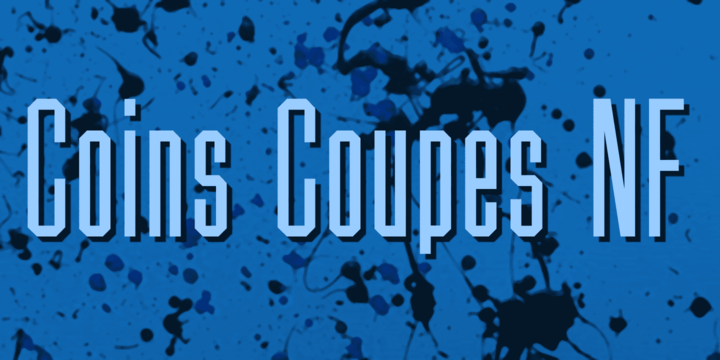
Coins Coupes NF
Chamfer, released by Barhart Brothers & Spindler in the late nineteenth century, provided the pattern for this simple, elegant headline face. Both flavors of this font feature the 1252 Latin, 1250 Central European, 1254 Turkish and 1257 Baltic character sets.